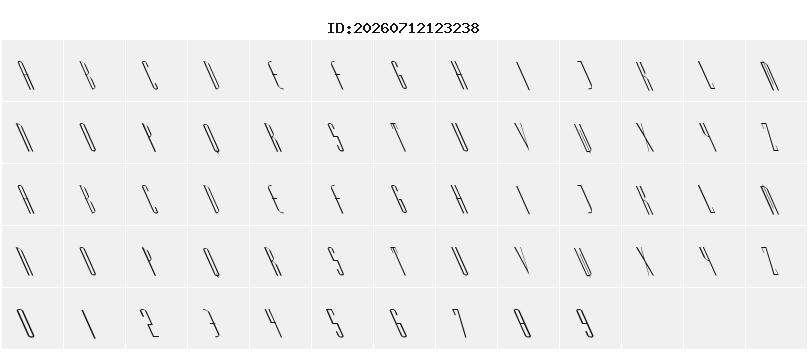
Madrid Lefty Preview
About Madrid Lefty.ttf
Madrid Lefty.ttf is a modern, elegant sans-serif font designed for ultimate readability and visual harmony. Perfect for branding, headlines, web design, and print materials.